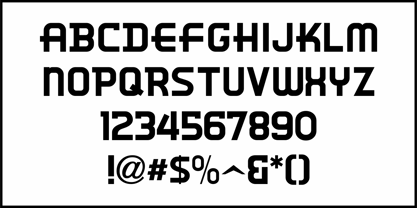
Privilege Sign Three JNL
von Jeff Levine
Unique and decorative signage for many drive-ins, motels, food stores and other businesses of the 1940s had what was referred to as “privilege signs” provided by one of the major cola brands.
Consisting of the brand’s emblem on a decorative panel, the remainder of the sign would carry the desired message of the storekeeper (such as “Drive-In”) in prismatic, embossed metal letters.
Inspired by the Art Deco sans serif style of those vintage signs, Privilege Sign Three JNL recreates another lettering selection in both regular and oblique versions. It was modeled after a drug store sign from the 1930s.
The typefaces are solid black, but adding a selected color and a prismatic effect from your favorite graphics program can reproduce the look and feel of those old businesses.
This is the second companion font to the original Privilege Sign JNL, which recreates the condensed sans serif lettering of other privilege signs from the 1950s and early 1960s.